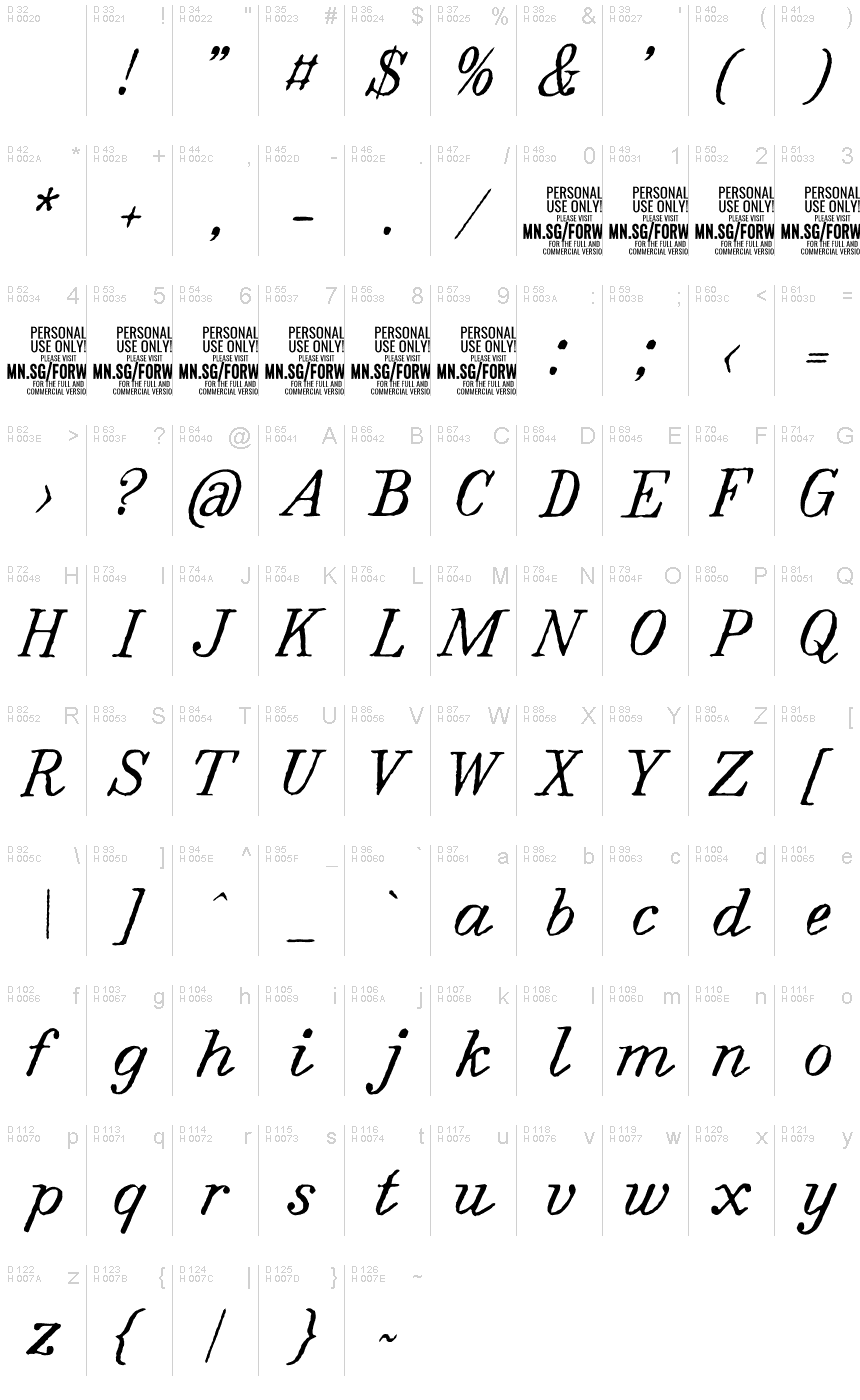
Looking for a bold and expressive display font that exudes confidence and sophistication? Look no further than Forward Serif, the latest creation from acclaimed designer Mans Greback. With its unique eroded serif style and semi-light weight, this font is perfect for adding a touch of vintage charm to any project. Whether you're designing an eye-catching poster, crafting a captivating logo, or creating striking headlines for your website or blog, Forward Serif's semi-condensed width ensures that your text will stand out from the crowd. Don't settle for ordinary fonts - choose Forward Serif and make your designs truly unforgettable!